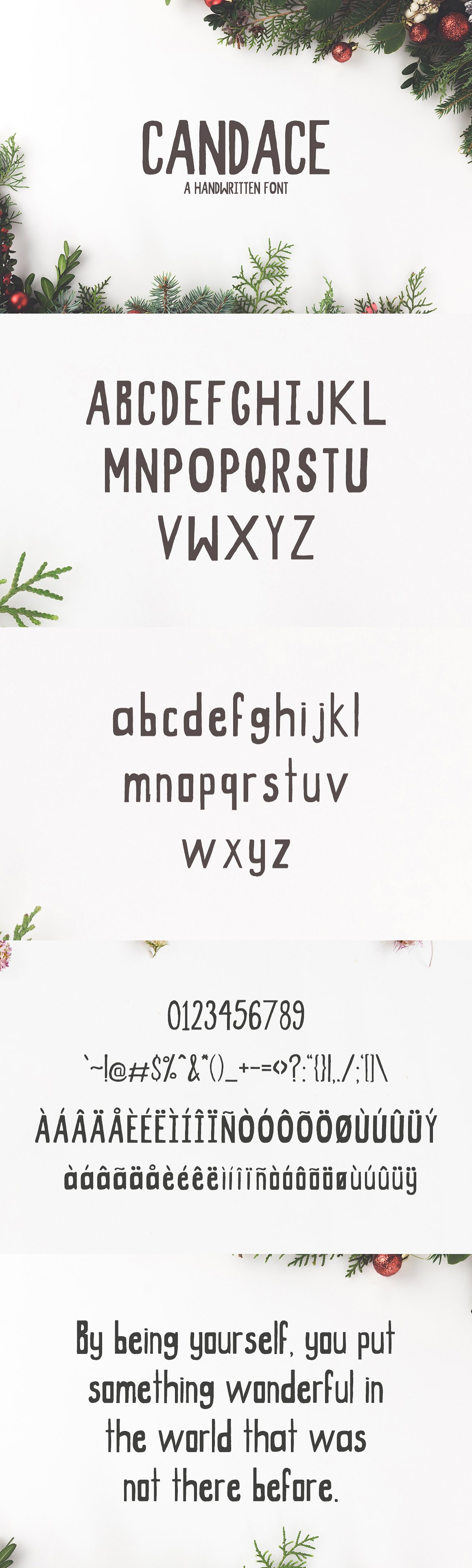
Candace Handwritten
Candace Handwritten Font
Candace is a modish handwritten font. This font comes with a complete set of lowercase, uppercase Numbers and Alternates. It is ideal for prints, logos, quotes, badges, labels, packaging design, blog, websites, designs, headlines, banners, posters, printings, T-shirts, magazines, promotional product, templates, etc.